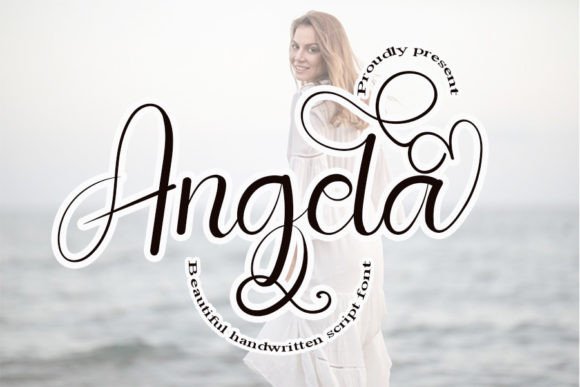
The Designer’s Delight: Angela Font
I’ll never forget the time I was working on a project for a client who wanted a elegant and sophisticated look. I had spent hours browsing through font libraries, but nothing seemed quite right. That’s when I stumbled upon Angela, a beautiful handwritten font that stole my heart. Its elegant touch and timeless style made it the perfect fit for my project, and I’m sure it can do the same for yours.
A Personal Review: What I Love About Angela
So, what makes Angela so special? Here are a few things that I absolutely love about this font:
- ✨ Elegant and sophisticated look that’s perfect for a variety of projects
- 💫 Incredibly versatile, works well for both headings and body text
- 🔥 Unique and distinctive style that sets it apart from other fonts
The Not-So-Perfect: A Few Quirks
While Angela is an amazing font, it’s not without its limitations. Here are a few things to keep in mind:
- 🤔 May not work as well for very long blocks of text, as it can start to feel a bit too ornate
- ⚠️ Some users may find the font a bit too delicate for certain design applications
One of the best things about Angela is its OpenType features and glyphs. These allow you to add more variety and interest to your designs, and can really help you stand out. Here are a few tips for using OpenType features and glyphs in Angela:
- Experiment with stylistic alternates to add more visual interest to your text
- Take advantage of swashes and ornaments to add a decorative touch
The Story Behind Angela
Angela was designed by a team of skilled typographers who wanted to create a font that was both elegant and approachable. With its timeless style and highly legible design, Angela is perfect for a wide range of projects, from wedding invitations to business branding.
Here are a few frequently asked questions about Angela:
| Q: What type of projects is Angela best suited for? | Angela is a versatile font that can be used for a wide range of projects, including wedding invitations, business branding, and more. |
| Q: Is Angela a script font? | While Angela has a script-like feel, it’s actually a handwritten font with a more elegant and refined style. |